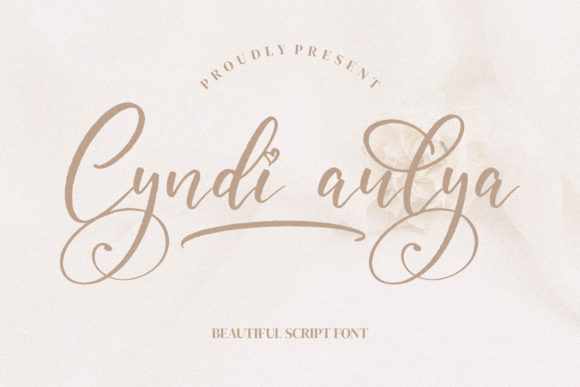
Journey into the world of exquisite typography with Cyndi Aulya Font, a captivating script font that will transform your creative projects into breathtaking masterpieces. Designed by the talented team at Integritypestudio, Cyndi Aulya is a premium font that oozes sophistication and elegance, making it the perfect choice for a wide range of design endeavors.
Unleash your imagination and let Cyndi Aulya's graceful curves and delicate strokes elevate your logos, branding projects, homeware designs, and product packaging to new heights of beauty. Create stunning quotes, posters, and shopping bags that exude timeless charm. Adorn your t-shirts, book covers, name cards, and invitation cards with a touch of refined artistry.
With Cyndi Aulya, you'll elevate your photography and social media posts, adding a touch of exclusivity to your online presence. Whether you're crafting eye-catching watermarks or designing unforgettable special event materials, this font will make your creations shine.
The possibilities are endless with Cyndi Aulya. Its versatility and timeless appeal make it a must-have font for designers of all levels, from seasoned professionals to creative enthusiasts. Experience the joy of effortless creativity as Cyndi Aulya transforms your ideas into visual masterpieces.
Embrace the beauty of Cyndi Aulya and embark on a creative journey where elegance and innovation intertwine. Download now and unlock the boundless potential of this extraordinary font. Let your imagination soar and witness the transformation of your designs into works of art.